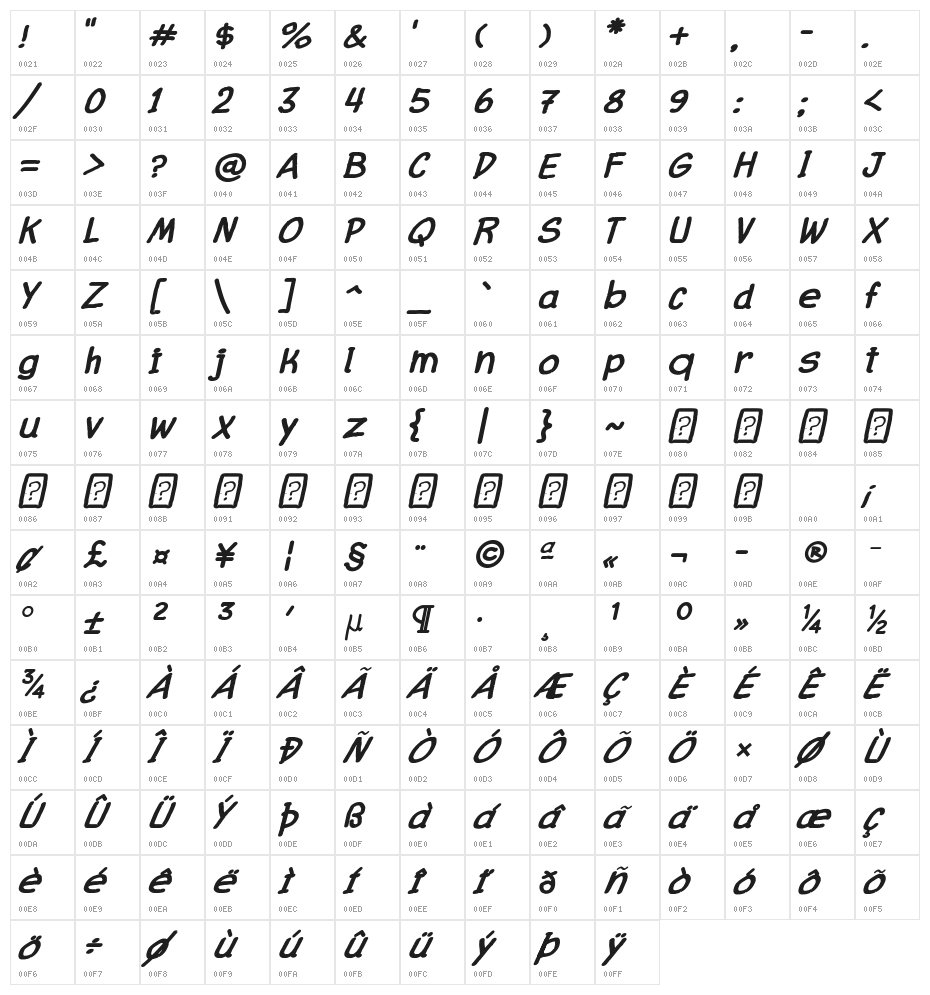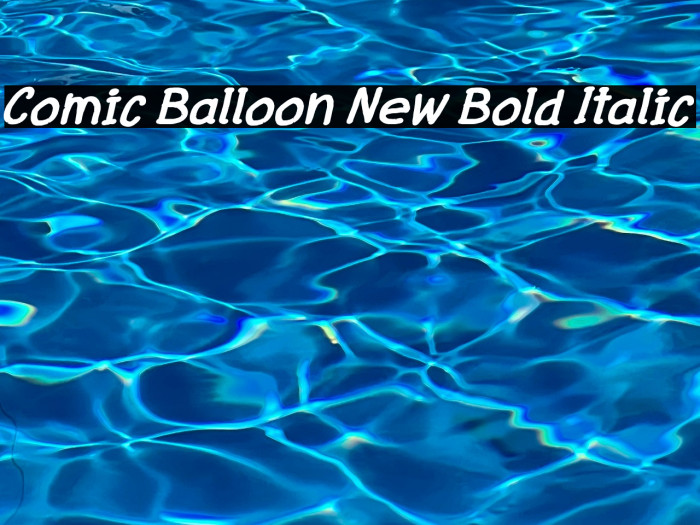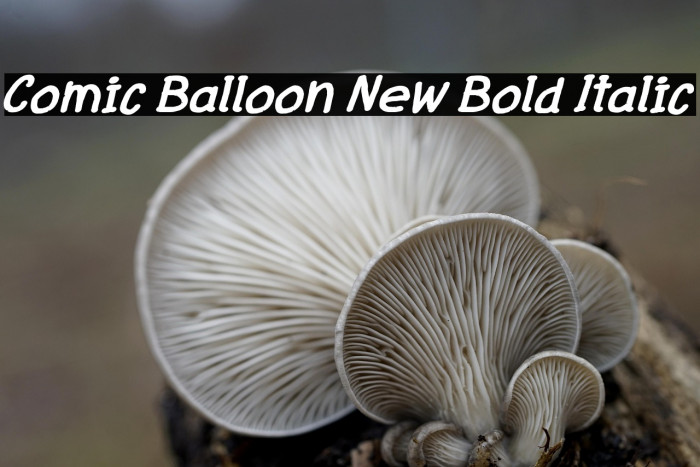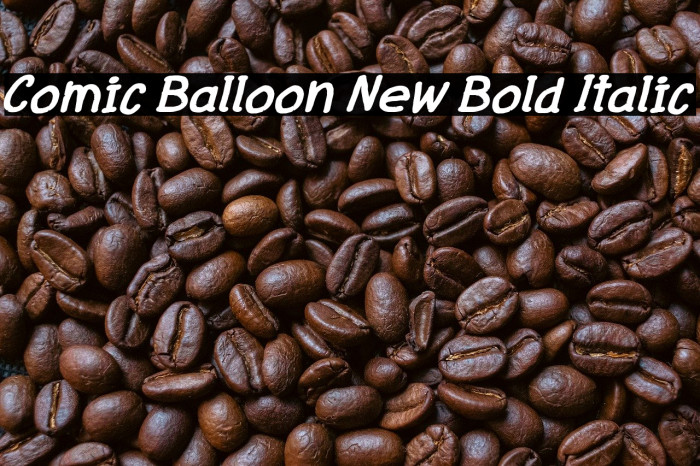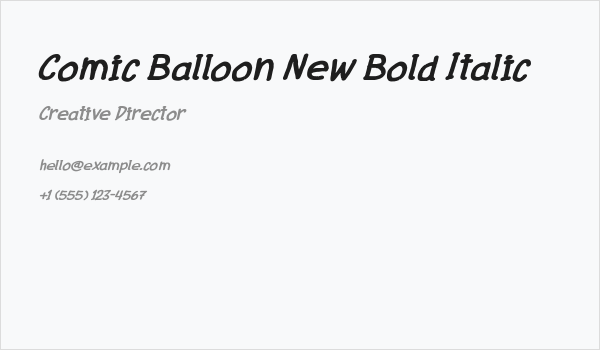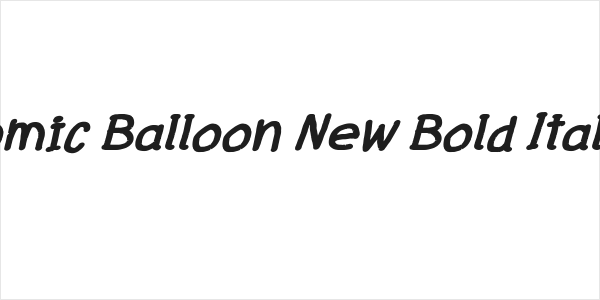
Comic Balloon New Bold Italic Font
Comic Balloon New Bold Italic Description
This playful and dynamic font features bold, rounded characters with a slight slant, giving it an energetic and informal appearance. The strokes are thick and consistent, providing a strong presence on the page. The letters have a hand-drawn quality, reminiscent of comic book lettering, which adds a whimsical and approachable feel. The spacing between characters is moderate, ensuring readability while maintaining the font's lively character. This style is ideal for projects that require a fun and engaging visual element.
Fonts by Galdino Otten Fonts
| Overall Style | Playful, Comic |
| Proposed Projects | Ideal for comic books, children's books, playful branding, and informal posters. |